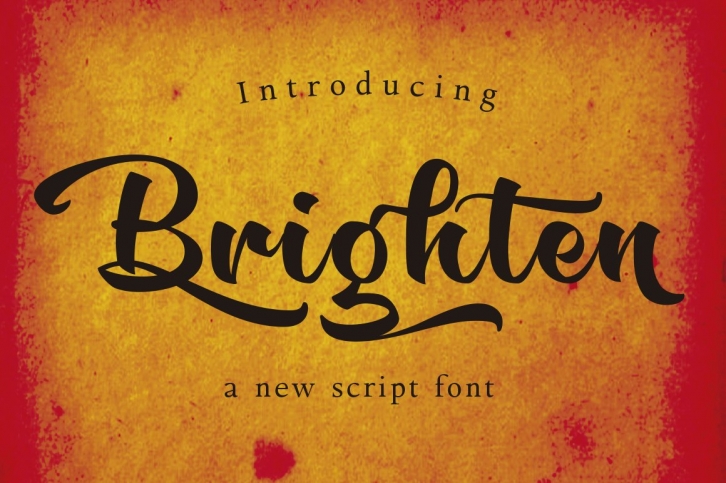
Design: Carine de Wandeleer Year of issue: 2017 Publisher: Eurotypo
Brighten is an elegant and casual script font. This new handmade round cursive contein 606 glyphs, equipped with plenty of OpenType features. Uppercase letters can alternate between at least two or three different forms and lowercase letters have leastways four choices more to avoid repetition. These effects include start and end forms of lowercase letters, which are automatically substituted in at beginnings or ends of words. To activate the optional glyphs, you may click on Swash, Contextual, Standard Ligatures, Stylistic or Discretionary Ligatures buttons in any OpenType savvy program or manually choose the characters from Glyph Palette. Also, there’s some ornaments designed to support the font (access the ornaments through the Glyph Palette). Brighten might be the choice to use on creating headlines, lettering design, logos & posters for branding and packaging purposes. Hope you enjoy!